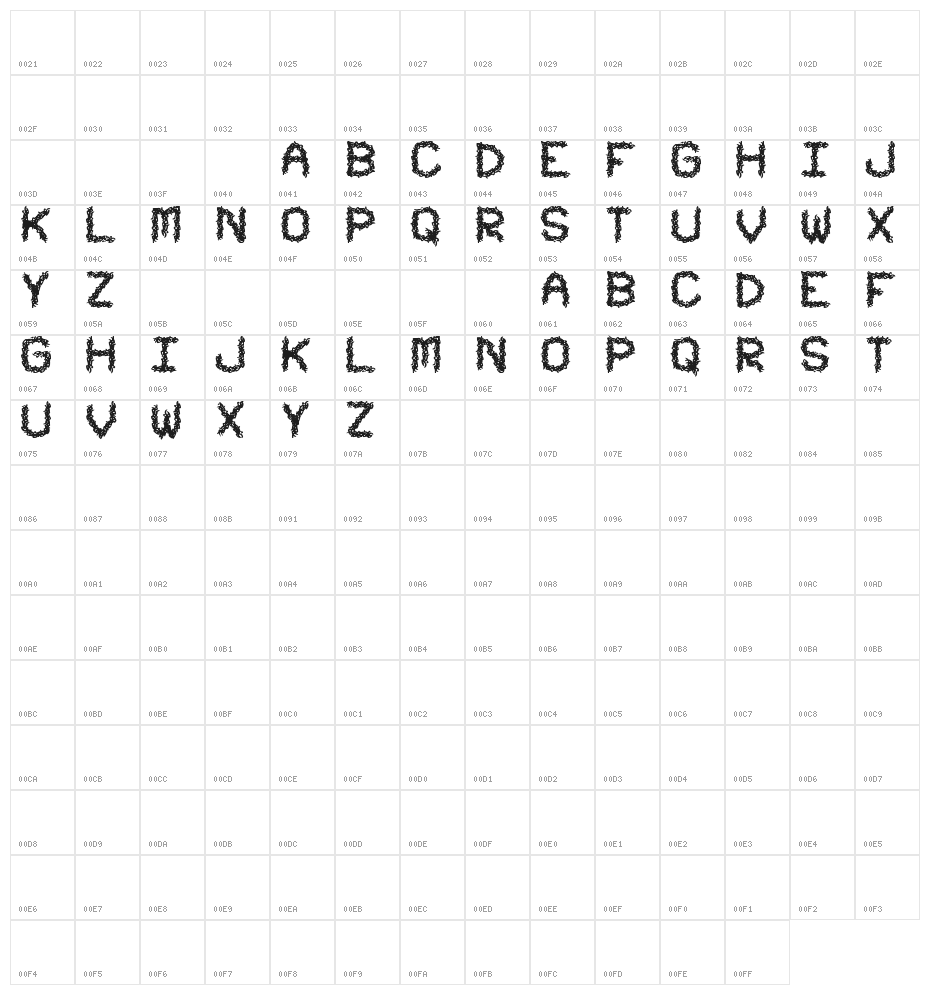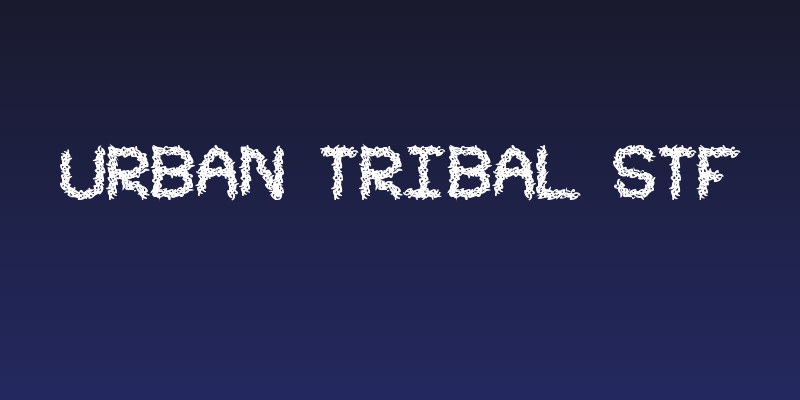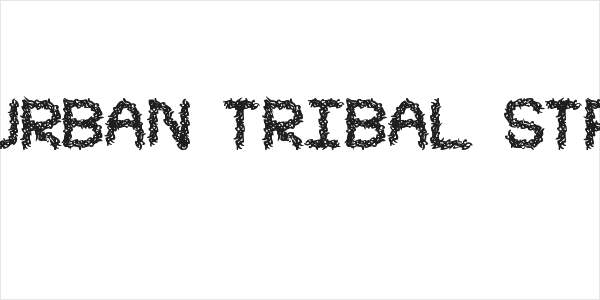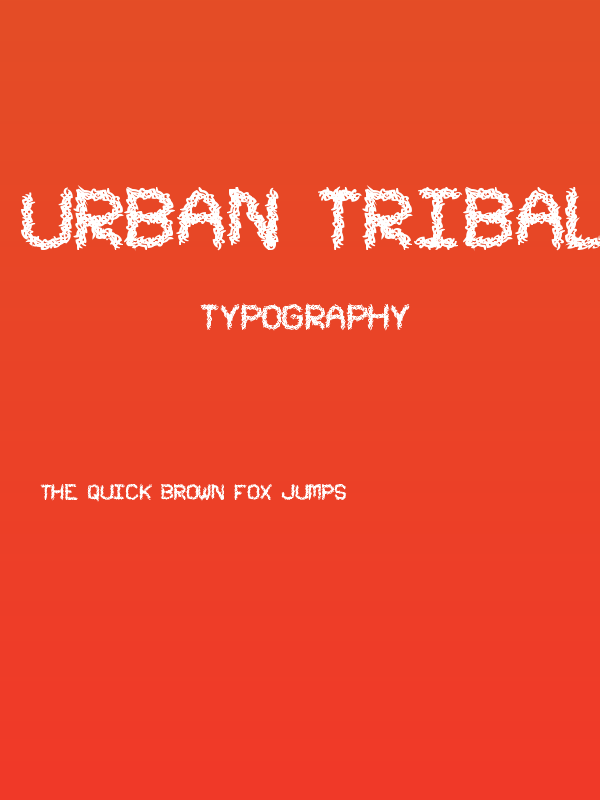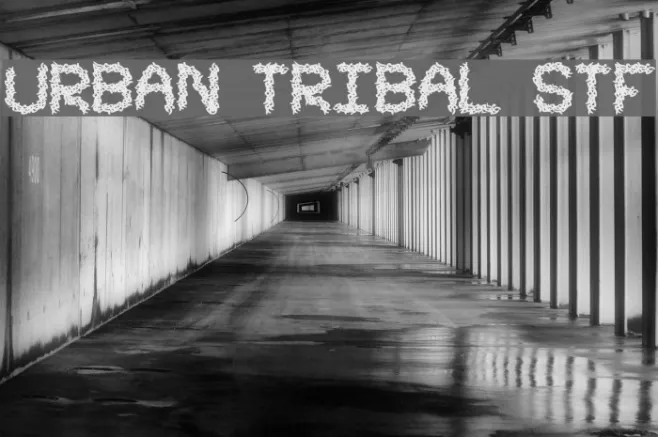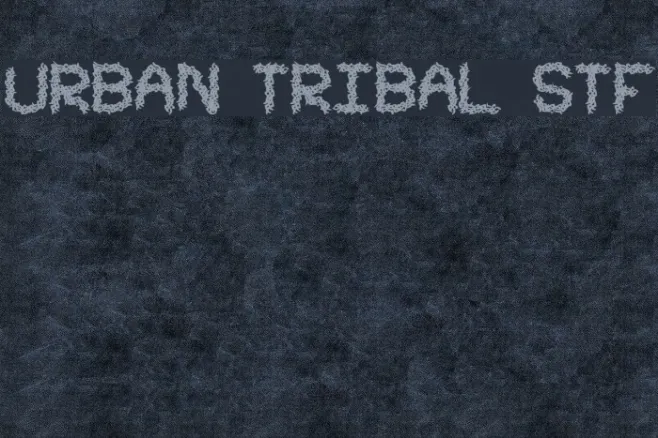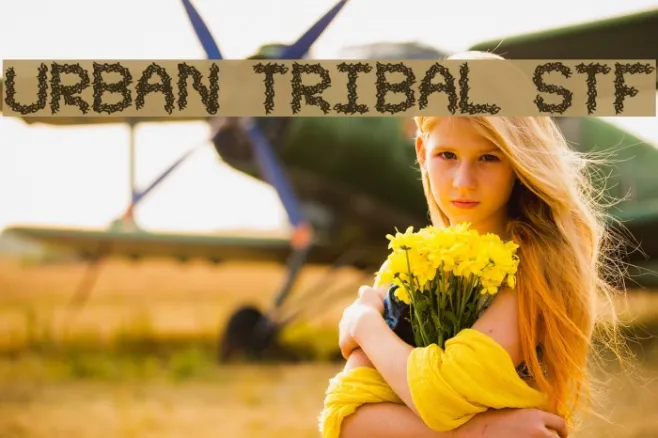
Urban Tribal STF Font
Urban Tribal STF Description
This font features a unique and intricate design that resembles tribal patterns, giving it an urban and edgy feel. The characters are composed of dense, swirling shapes that create a textured appearance, making each letter stand out with a bold presence. The style is highly decorative, with a focus on artistic expression rather than readability. This font is ideal for projects that require a strong visual impact and a touch of cultural or artistic flair. The overall design is consistent across all characters, maintaining a cohesive look that is both modern and tribal in essence.
| Overall Style | Modern, Tribal |
| Proposed Projects | Ideal for album covers, streetwear branding, posters, and artistic projects that require a bold statement. |